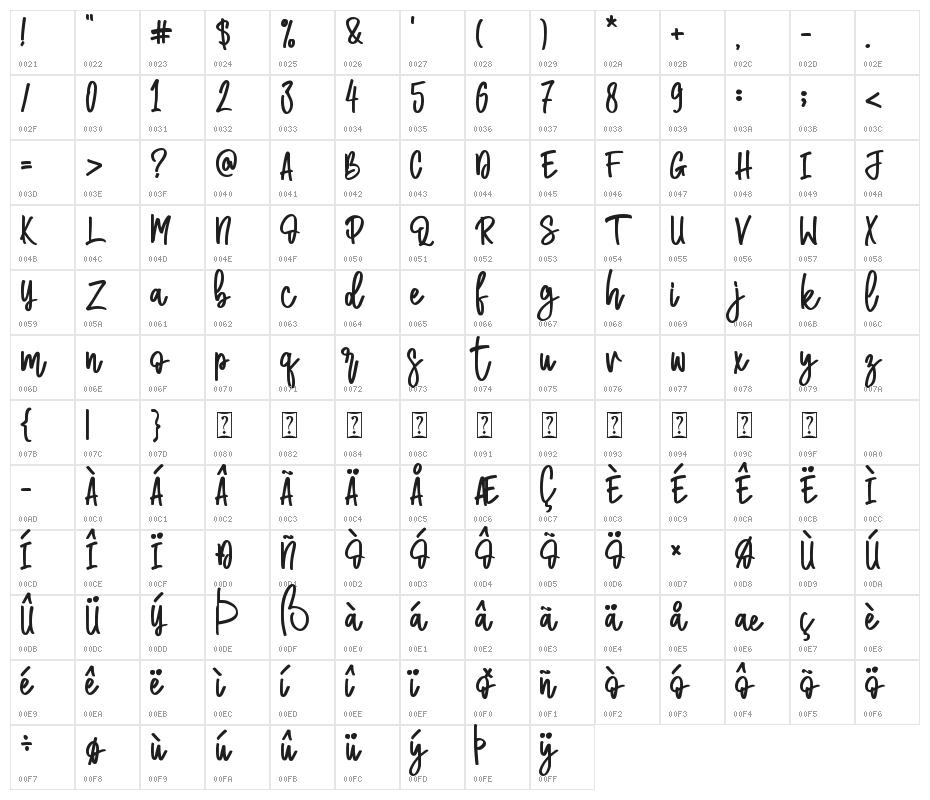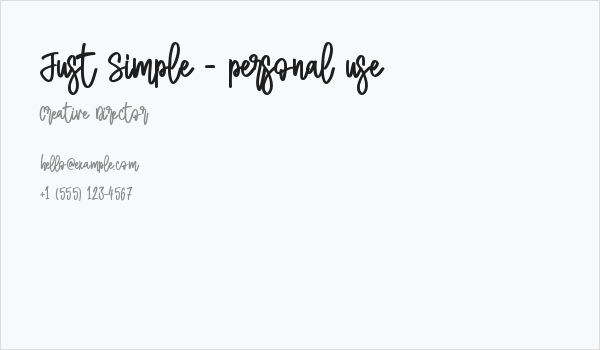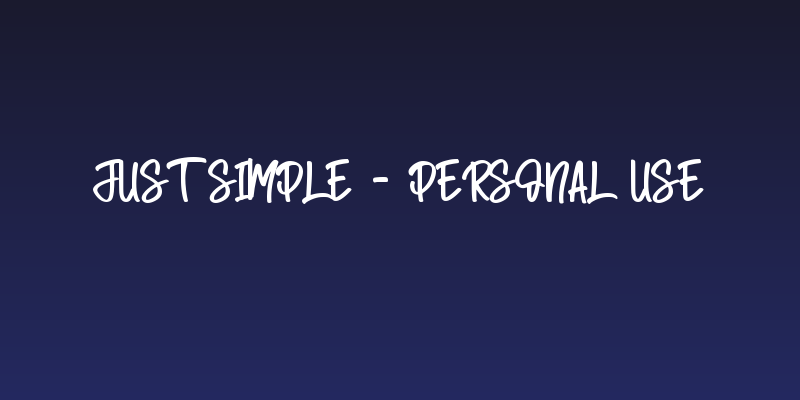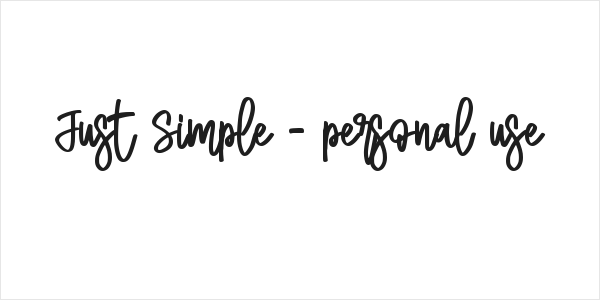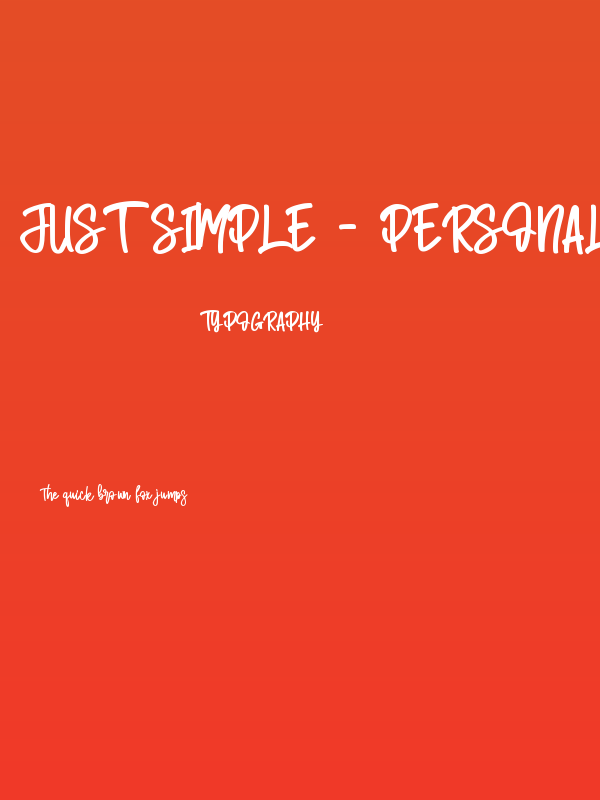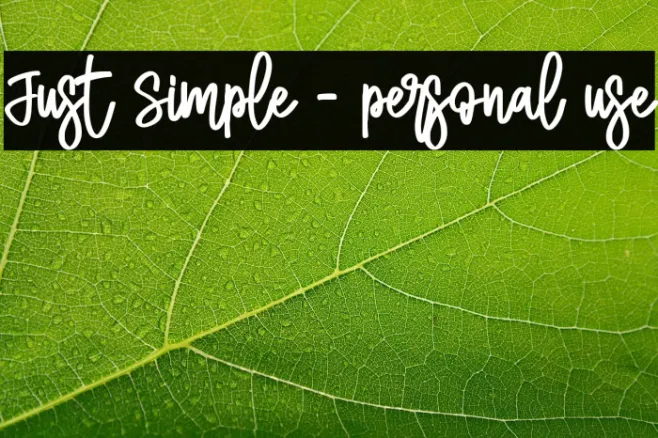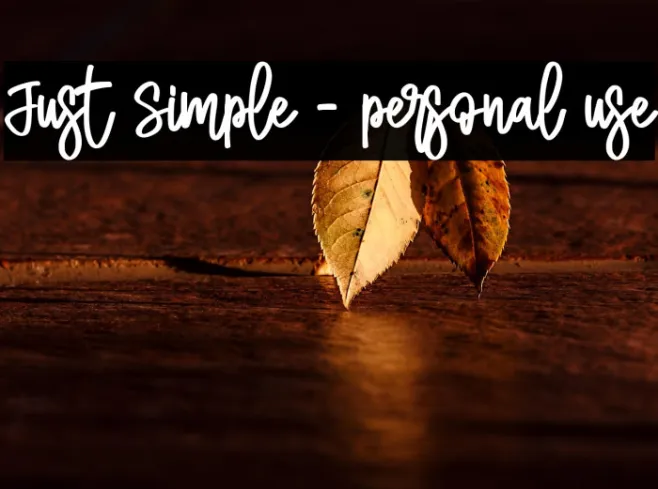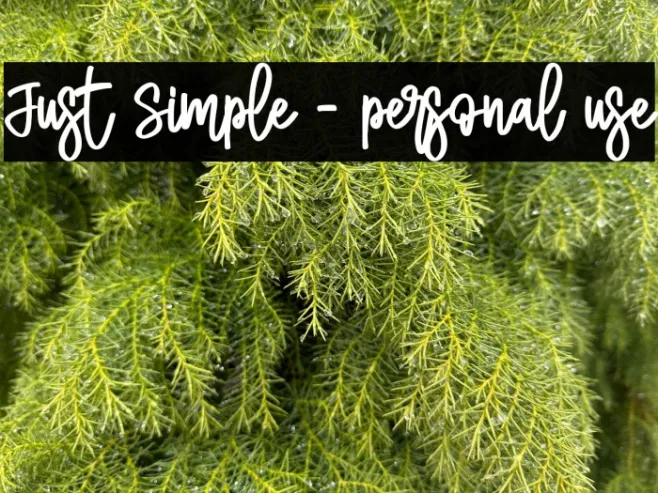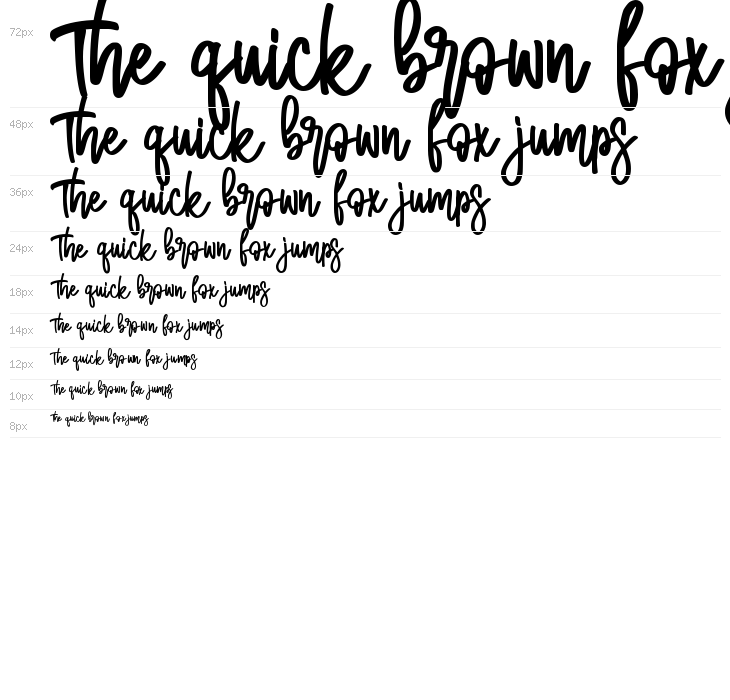
Just Simple - personal use Font
Just Simple - personal use Description
This font features a playful and energetic handwritten style, characterized by its fluid and dynamic strokes. The letters are bold and slightly slanted, giving a sense of movement and personality. The uppercase and lowercase letters maintain a consistent style, with rounded edges and a casual flair. Numbers and special characters are integrated seamlessly, maintaining the same lively aesthetic. The overall appearance is informal and friendly, making it suitable for projects that require a personal touch.
| Use Case | Logos, Headlines, Social Media |
| Proposed Projects | Ideal for greeting cards, invitations, personal branding, and social media graphics. |